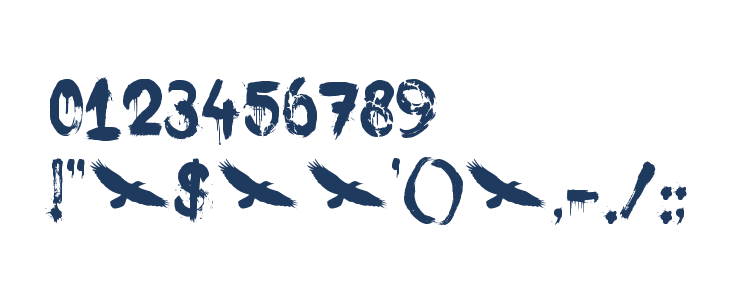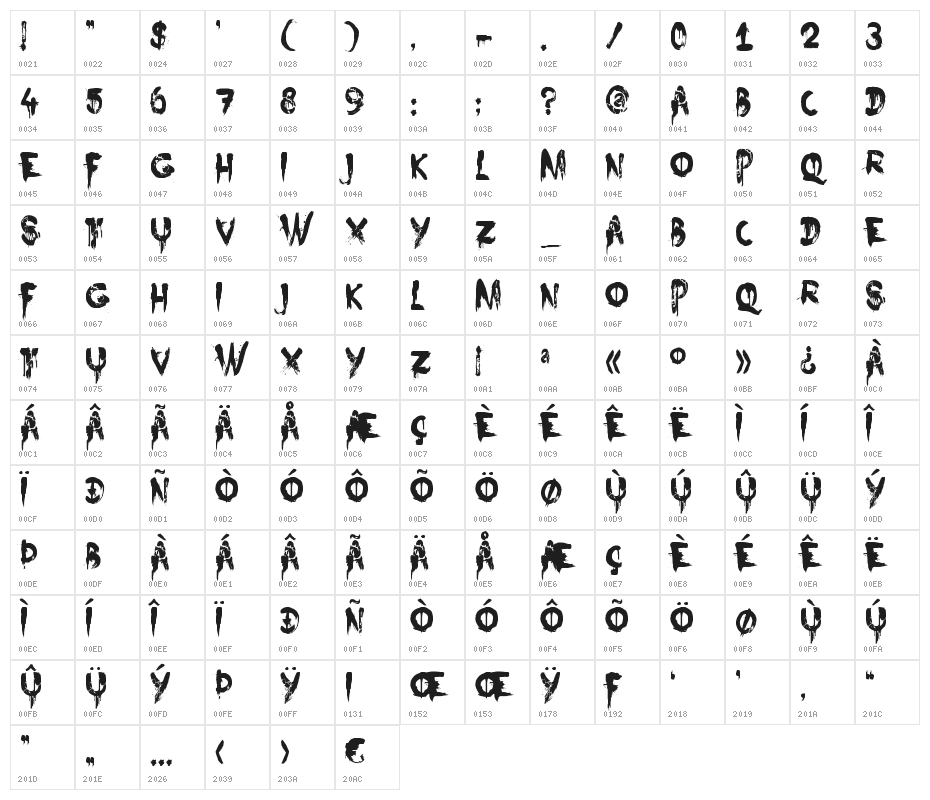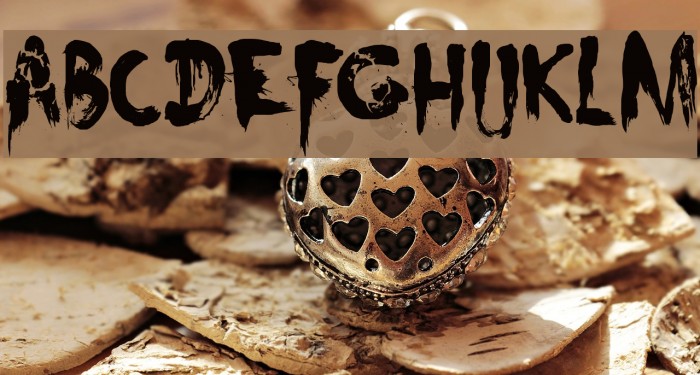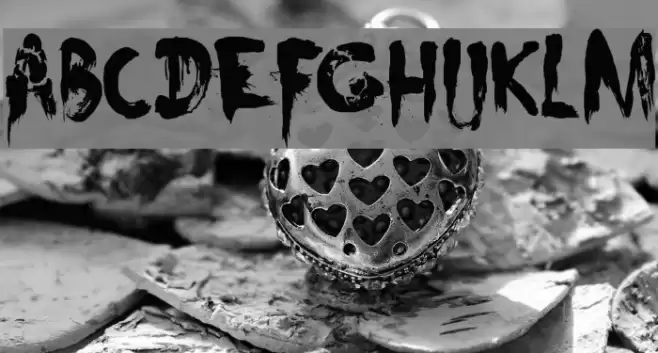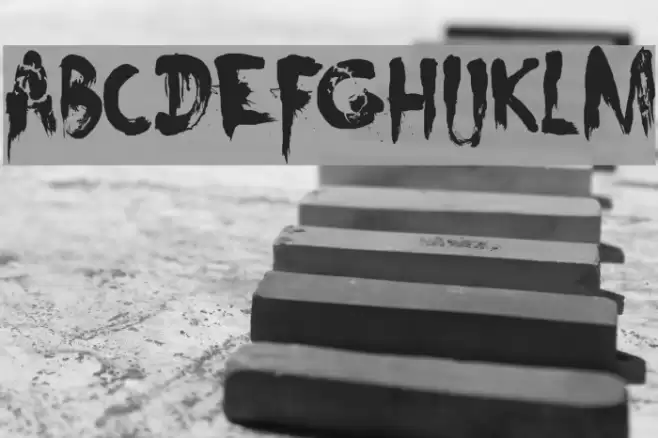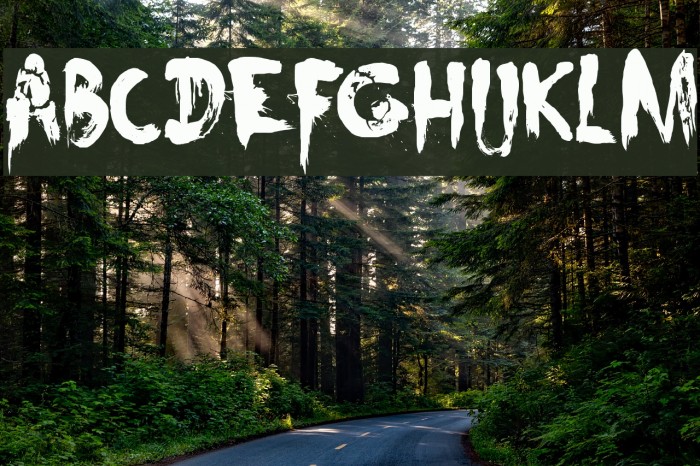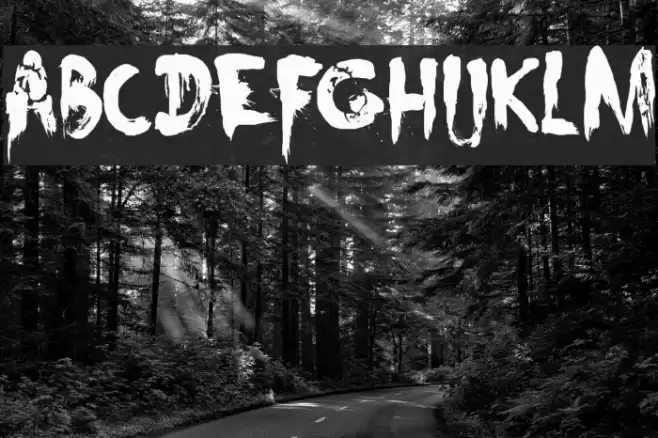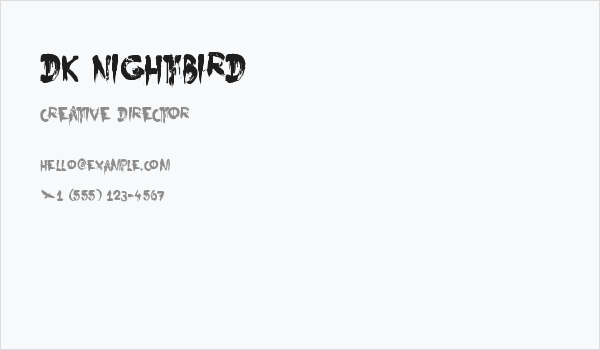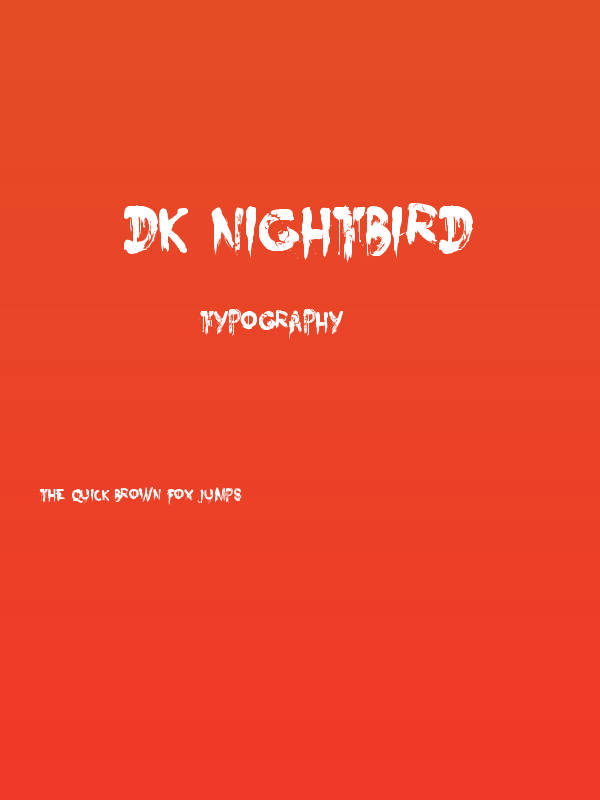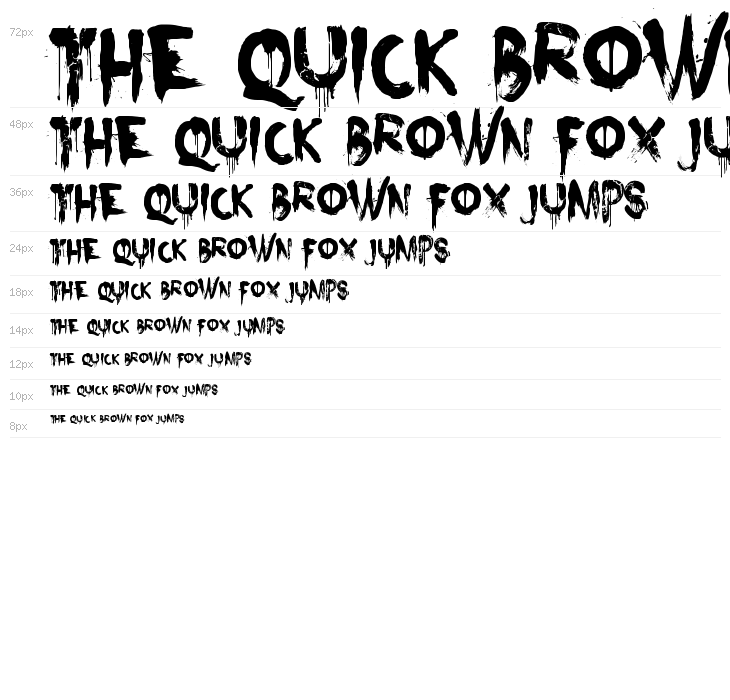
DK Nightbird Font
DK Nightbird Description
This font exudes a gritty, distressed aesthetic, reminiscent of grunge or horror themes. The characters are bold and irregular, with splatters and rough edges that give it a hand-painted appearance. The uppercase and lowercase letters maintain a consistent style, with exaggerated strokes and uneven baselines. Numbers and special characters follow the same rugged design, making it suitable for projects that require a dramatic and edgy look.
| Overall Style | Grunge, Horror |
| Proposed Projects | Ideal for horror movie posters, album covers, Halloween event flyers, and edgy branding materials. |